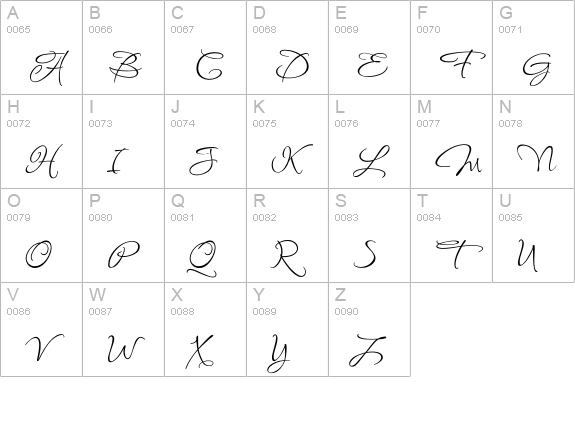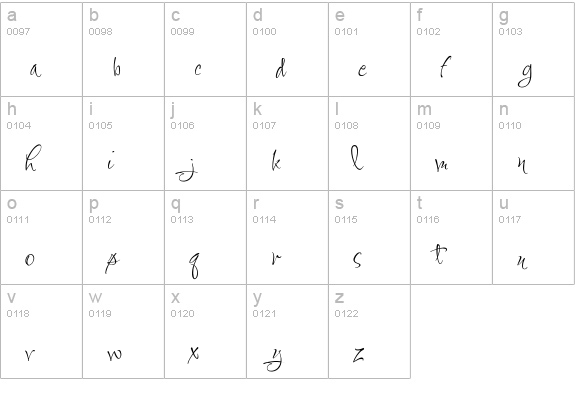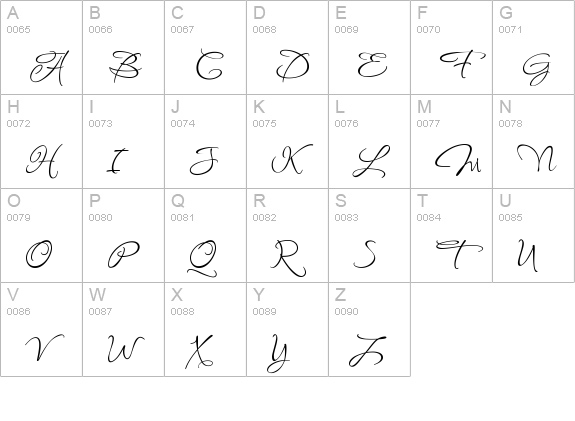
FugglesThree Font Details
FugglesThree font exudes a sense of creativity and uniqueness with its distinctive style and elegant curves. This font is perfect for adding a touch of sophistication to your designs, whether it's for branding, invitations, posters, or any other creative project. The sleek and modern look of FugglesThree font will surely make your text stand out and leave a lasting impression. What's even better is that FugglesThree font is completely free to download at FontsMarket.com! Yes, you read that right - you can enhance your designs with this exquisite font without spending a penny. So go ahead and elevate your projects with the charm and versatility of FugglesThree font, available for free at FontsMarket.com.